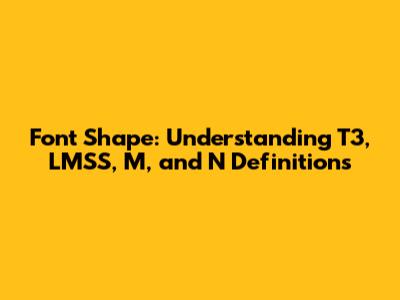
Hey guys! Ever been curious about the secret language of fonts? You know, those cryptic codes and abbreviations that designers throw around like confetti? Well, today we're diving deep into the fascinating world of font shapes, specifically unraveling the mysteries behind T3, LMSS, M, and N definitions. Buckle up, because we're about to get seriously font-nerdy!
Decoding Font Shapes: A Deep Dive
When we talk about font shapes, we're essentially discussing the visual characteristics that define a particular typeface. These characteristics include the overall design, the proportions of the letters, the weight of the strokes, and a whole lot more. Think of it like this: every font has its own unique personality, and font shapes are the building blocks of that personality. Understanding these shapes is crucial for designers, typographers, and anyone who wants to communicate effectively through the written word. Let's face it, choosing the right font can make or break your message! Choosing the right font shapes allows you to evoke different emotions and project different brand personalities. Whether you need something clean and modern, or something elegant and traditional, the font shape will communicate that for you. Moreover, fonts impact readability and user experience. Think of websites that have cluttered or hard to read fonts, or worse, fonts that are too small. It makes browsing the website or app a less than optimal experience. Font shapes determine the overall aesthetic and visual appeal of a design. Selecting the right shape can elevate a design and grab the user's attention, or alternatively, it can have the opposite effect. From branding to marketing materials, font shapes play a vital role in creating a cohesive and memorable visual identity. Finally, fonts are more than just a visual element; they contribute to the user's overall experience. Choosing the right font shapes can enhance readability, convey the right tone, and ultimately make the content more engaging and accessible for the reader. Now, let's move on to the specifics of T3, LMSS, M, and N definitions!
Unraveling the Mystery of T3
Okay, so what exactly is T3? In the context of font shapes, T3 typically refers to a specific style or variant within a font family. It's not a universal term, so its precise meaning can vary depending on the font designer or foundry. However, in general, T3 often indicates a modified or stylized version of the base font. This could involve changes to the letterforms, the addition of decorative elements, or adjustments to the overall weight or width. For example, a font family might include a regular version, a bold version, and a T3 version that features a unique set of swashes or ligatures. Swashes are decorative extensions of letter strokes, while ligatures are combinations of two or more letters into a single glyph. These features can add a touch of elegance or personality to the font, making it suitable for specific design applications. Now, you might be asking, when would you use a T3 font? Well, it really depends on the project. If you're working on a formal invitation or a high-end branding campaign, a T3 font with delicate swashes could be the perfect choice. On the other hand, if you're designing a website for a tech company, a more modern and minimalist font might be more appropriate. Keep in mind that readability is always key. While decorative fonts can be visually appealing, they should be used sparingly to avoid overwhelming the reader. Imagine a scenario where a T3 font is part of a branding campaign. Let's say a luxury cosmetic brand uses the T3 variant of a font to highlight a new product line. The swashes on the font communicate the brand's luxurious and elegant image, aligning with the type of product they are promoting. It's these subtle details that make all the difference. Now, remember that not all font families include a T3 variant, and even when they do, the specific characteristics of the T3 style can vary greatly. Always refer to the font's documentation or specimen sheet to understand its intended use and design features.
LMSS: Demystifying This Font Term
Next up, let's tackle LMSS. Now, this one can be a bit tricky because LMSS isn't as widely used as some other font terminology. However, in some contexts, LMSS can refer to a specific classification or category of fonts. It might be used internally by a font foundry or design studio to group fonts with similar characteristics. Unfortunately, there's no universal definition of LMSS, so its exact meaning will depend on the specific context in which it's used. It is important to look at the context in which it's used to understand what it means in relation to the current project at hand. Generally speaking, when considering LMSS, think about the broad categorization of fonts based on characteristics like serif, sans-serif, script, and decorative. If we were to make an assumption, LMSS might refer to fonts that have a more modular design or that are intended for use in specific applications. For example, it might be used to describe fonts that are optimized for on-screen reading or fonts that are designed for use in technical drawings. Consider also the historical context of font design. The evolution of font design has led to the emergence of various classification systems. These systems have helped designers and typographers categorize and organize the vast landscape of typefaces. While LMSS may not be a formal classification, it could be a term used within a specific community or project to refer to a group of fonts that share certain characteristics. The key takeaway here is that LMSS is not a standard term, and its meaning can vary depending on the context. If you encounter this term, be sure to do your research and understand its specific definition in that particular situation. This could mean consulting with other designers, looking for information on the specific font foundry, or simply experimenting with different fonts to see which ones seem to fit the LMSS description. Always keep in mind that fonts are tools, and the more you understand them, the better you'll be able to use them to communicate effectively.
The Significance of 'M' in Font Shapes
Moving on to the letter 'M'. In the realm of font shapes, 'M' often relates to the width and proportions of the letter M within a specific typeface. The design of the letter M can significantly impact the overall appearance and readability of a font. Different fonts will have different approaches to the letter M, and these variations can be quite subtle or very pronounced. For example, some fonts may have a wider M, while others have a narrower M. Some Ms might have angled strokes, while others have more vertical strokes. These differences can affect the visual balance and harmony of the font, as well as its legibility. The letter M is not created equal across different font families. Some of the things that can vary across them are the width of the letter M, the height of the letter, the angle of the strokes, the thickness of the strokes, and the presence of serifs. For instance, a font designed for headlines might have a wider M to make a bold statement, while a font designed for body text might have a narrower M to save space and improve readability. The letter M serves as an important indicator of the overall design and characteristics of a font. Consider the impact of the letter 'M' on branding. The M in a brand's logo can become a recognizable symbol, conveying specific qualities and values. A bold and wide M might convey strength and confidence, while a more delicate and narrow M might convey elegance and sophistication. Now, if we were to consider examples, think of the iconic McDonald's logo. The golden arches, which are essentially stylized Ms, have become synonymous with the brand. The shape and proportion of those Ms play a significant role in the brand's visual identity. Likewise, luxury brands often use fonts with carefully crafted Ms to convey a sense of exclusivity and refinement. The key is to pay attention to the details and understand how the letter M contributes to the overall message and aesthetic of the font. This is not something that you'd necessarily notice, but the absence of it would certainly be felt.
Understanding 'N' in the Context of Font Shapes
Last but not least, let's explore the meaning of 'N' in font shapes. Similar to 'M', 'N' often refers to the specific design and proportions of the letter N within a font. Just like with the letter M, the design of the letter N can influence the overall look and feel of a typeface. Variations in the width, height, and stroke angles of the letter N can create subtle but noticeable differences between fonts. The N can vary in its width, the angle of its diagonal stroke, and the way it connects to other letters. These variations can affect the overall readability and visual appeal of the font. For instance, a font with a wider N might feel more open and airy, while a font with a narrower N might feel more compact and efficient. There are plenty of things to consider when choosing the letter N. In considering these factors, consider how the letter N appears in different fonts. Take the letter N in a geometric sans-serif typeface, like Futura. The N is usually clean, with straight lines and equal thickness. Now consider a serif typeface like Times New Roman. The N features serifs and a slight variation in the stroke thickness. Each letter N has a different look and feel due to the shape that it is in. Understanding the significance of the letter N requires careful evaluation. The letter N is not just a simple character; it's a building block that helps to create the overall impression of a typeface. When choosing a font, be sure to pay attention to the design of the letter N and how it contributes to the overall message and aesthetic. So the next time you're admiring a font, take a closer look at the letter N and appreciate the subtle nuances that make it unique. You might be surprised at how much it can tell you about the font's overall personality and design.
So there you have it, guys! We've successfully demystified the font shape definitions of T3, LMSS, M, and N. While some of these terms may be more common than others, understanding their potential meanings can help you navigate the world of fonts with greater confidence. Remember, choosing the right font is an essential part of effective communication, so keep exploring and experimenting with different typefaces to find the perfect match for your design projects!